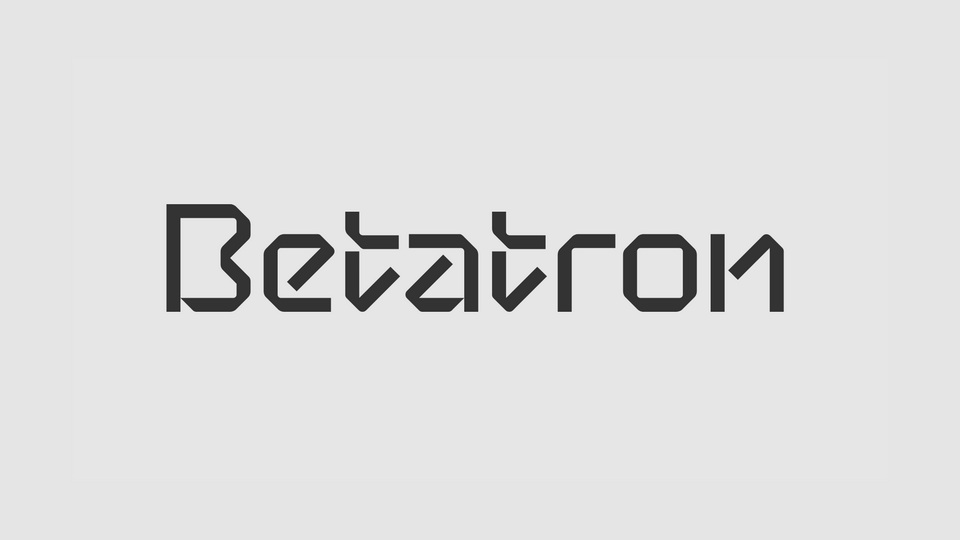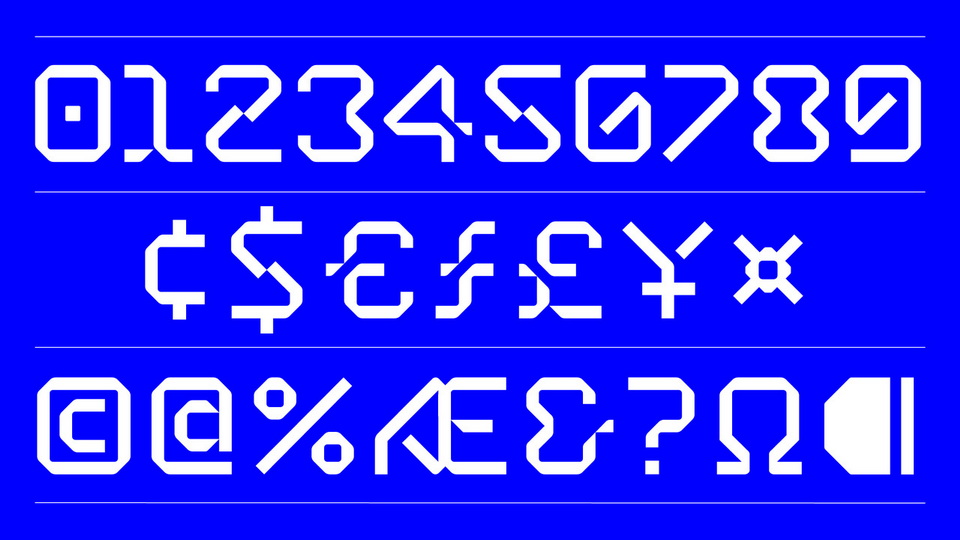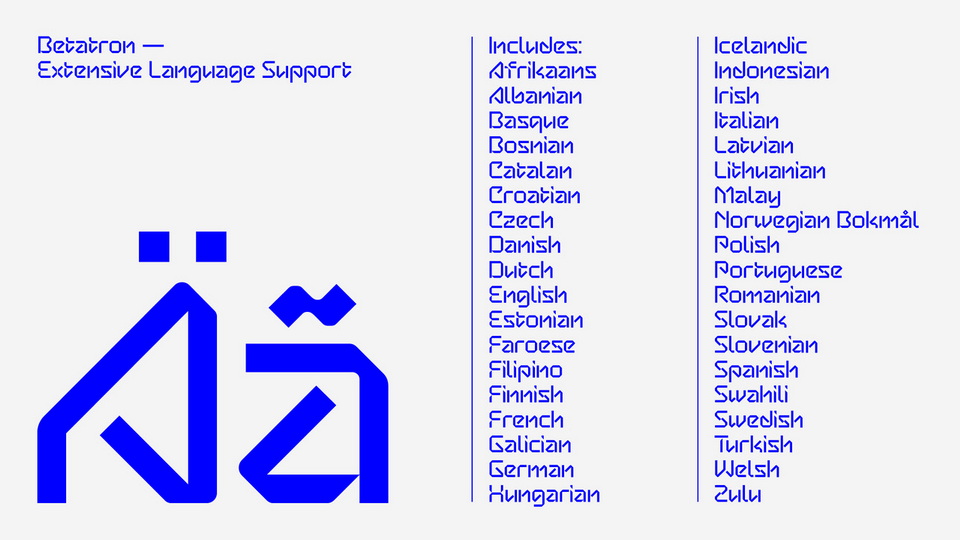
Betatron is a display typeface inspired by sci-fi movies set in the not too distant future.
Betatron features solely vertical, horizontal, and 45° diagonal lines as it tries to capture each letterform in an abstract and dynamic way. This font features a Latin Extended character set, covering most languages written with the Latin script.